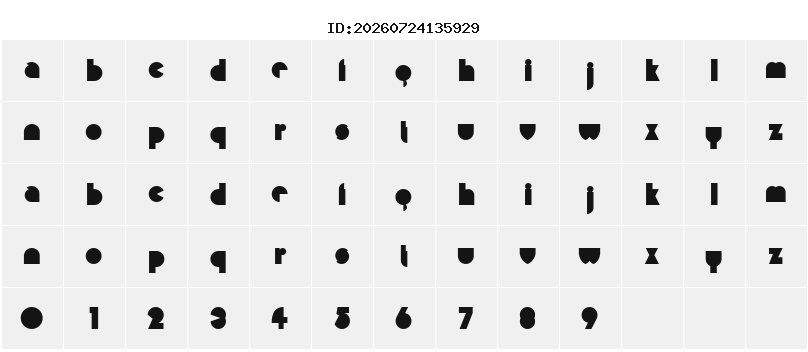
• Font Name: Misirlou Cyr
• Font ID: RayLarabie(lat.)&NikolayDubina(cyr.): Misirlou Cyr: 2001
• Full Font Name: Misirlou Cyr
• Designer: Ray Larabie (lat.) & Nikolay Dubina (cyr.)
About Misirlou Cyr.ttf
Misirlou Cyr.ttf is a modern, elegant sans-serif font designed for ultimate readability and visual harmony. Perfect for branding, headlines, web design, and print materials.